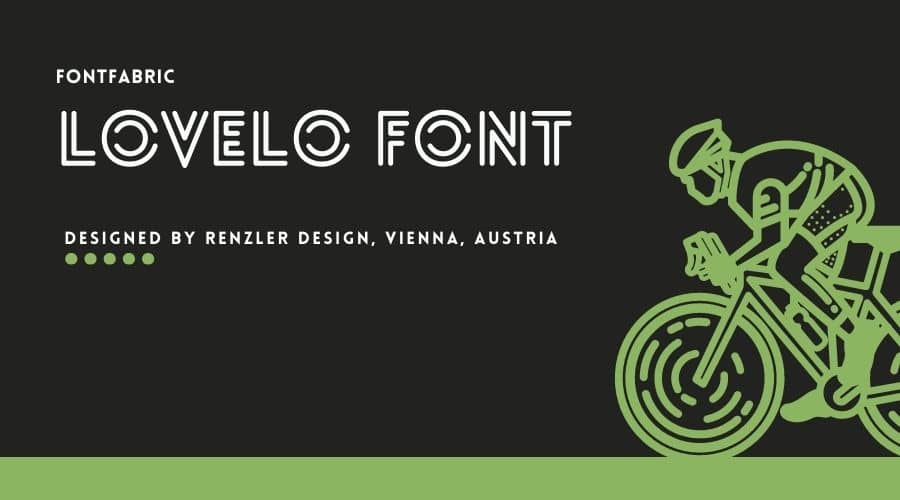
Alata Is Similar To Lovelo In Google Font.
This typeface is a family member of the display group texture, the style of this texture is gothic, which seem unique from all the texture in their style and design. Lovelo font is a free to use font. Lovelo free font is remake of the original lovelo inline designed by renzler design, vienna, austria.
Today Going To Introduce The Good Sans Serif Font Called Lovelo Font Updated On Nov 18, 2017.
Also, Brandon Grotesque Font, Ff Super Grotesk Is Similar To Lovelo.
This font appears very nicely on the screen. Designers of it need to make it a more versatile typeface so that they. Lovelo black, lovelo line bold, lovelo line light.